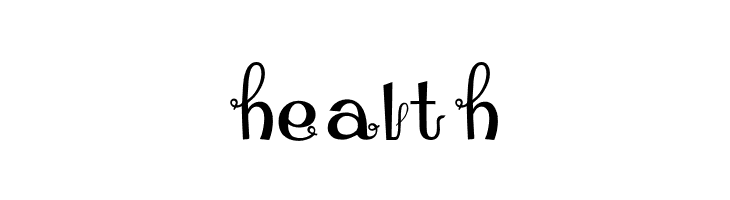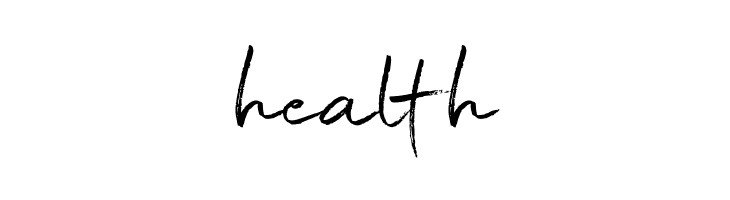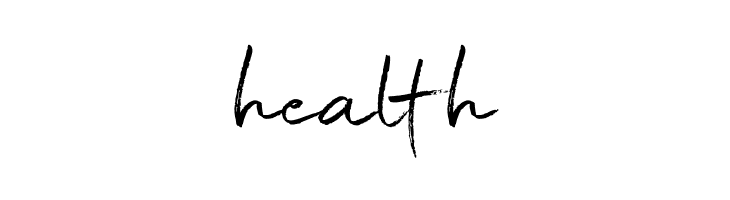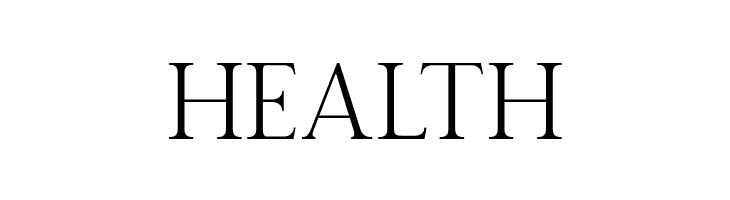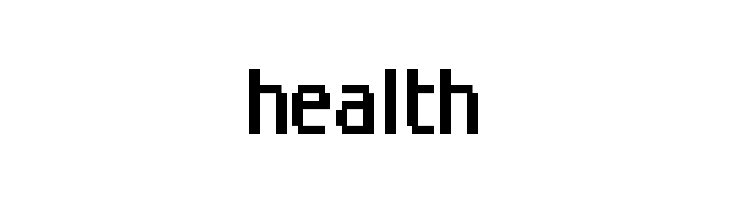
A dynamic, expressive handwritten font with fluid, spontaneous strokes.
A classic serif font with elegant strokes and refined serifs.
A lively, expressive handwritten font with dynamic strokes and a personal touch.
A playful and whimsical font with decorative swirls and loops.
A playful, bold font with quirky serifs and a lively twist.
A whimsical, thorn-adorned decorative font with sharp angles and pointed serifs.
A playful, twig-like font with a hand-drawn, organic style.
A pixelated, retro-style font with a blocky, geometric design.